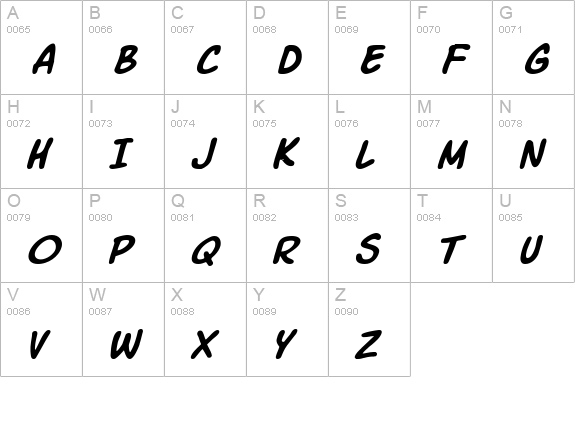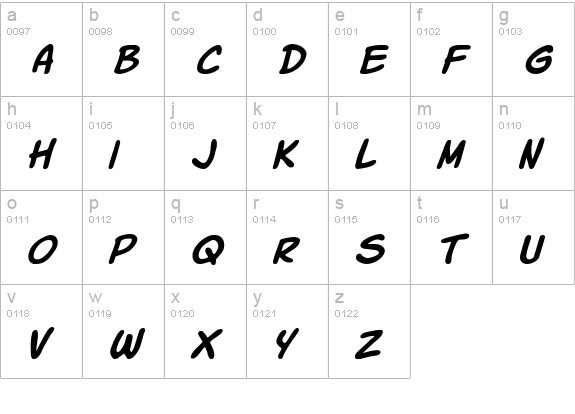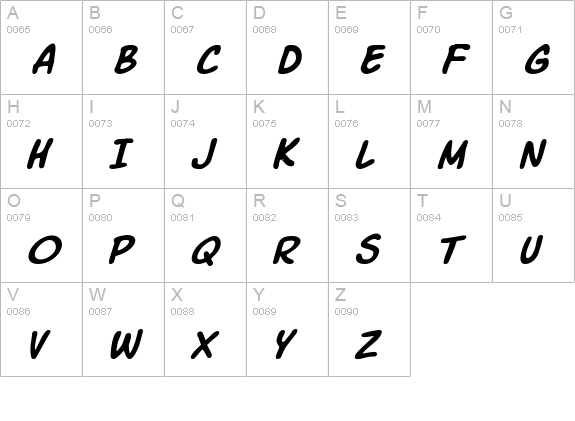
Komika Slick Italic is a distinctive, italic variant in the Komika typeface family \xE2\x80\x94 well suited to design and typography projects.
Komika Slick Italic font is a stylish and modern typeface that exudes elegance and sophistication. Its sleek and slanted design adds a touch of flair to any project, making it perfect for logos, branding, headlines, and more. The italicized version of Komika Slick brings a sense of dynamism and movement to your text, captivating the attention of viewers. The best part about Komika Slick Italic font is that it is available for free download at FontsMarket.com. You can easily access this versatile font and enhance your designs with its unique and eye-catching style. Don't miss out on the opportunity to elevate your projects with the sleek and modern Komika Slick Italic font. Download it today and unleash your creativity!